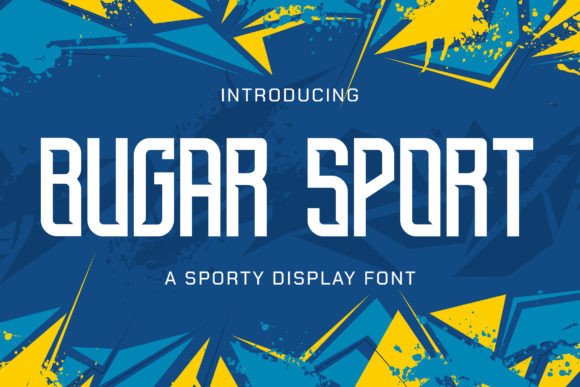
Embark on a typographic journey with Bugar Sport, the dynamic and modern display font crafted by StringLabs. This captivating font family exudes athleticism and energy, propelling your designs to new heights of visual impact. Unleash your creativity and make a lasting impression with Bugar Sport, the ultimate font for capturing the essence of sports and dynamic motion.
Bugar Sport's playful and conceptual design dances across your screens, demanding attention and igniting excitement. Its unique letterforms, inspired by the fast-paced world of sports, seamlessly blend sharp edges with flowing curves, creating a visual spectacle that captivates the eye. This exceptional font commands attention in headlines, posters, branding, and any other realm where boldness and energy are paramount.
Dive into the exhilarating world of sports with Bugar Sport, the font that embodies the thrill of victory and the passion of competition. Whether you're designing for football, basketball, soccer, or any other sport, Bugar Sport is your ultimate weapon for creating designs that resonate with power, speed, and agility. Its versatility extends beyond sports, making it a perfect choice for a wide range of projects seeking a bold and energetic touch.
Ignite your imagination and elevate your designs with Bugar Sport, the font that brings dynamic energy to your creative endeavors. Its captivating style and versatility make it an essential tool for designers seeking to make a powerful statement. Embrace the spirit of sportsmanship and unleash the full potential of your designs with Bugar Sport, the font that propels your creativity to new heights.